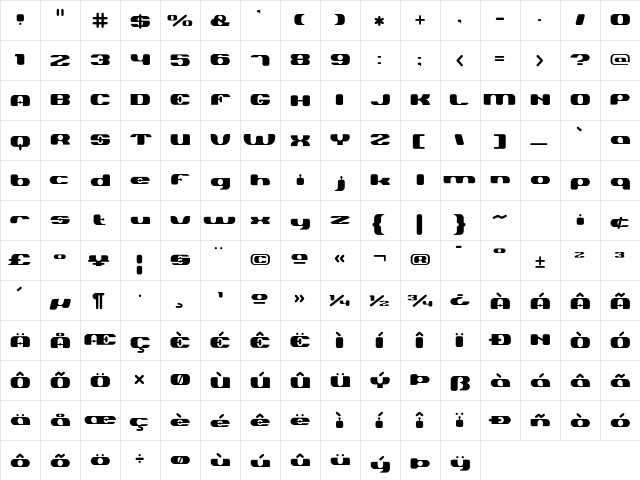
Terminal Regular
Design Context for Terminal Typeface
Terminal is a composed and adaptable typeface that performs quietly and consistently across a wide range of design contexts.